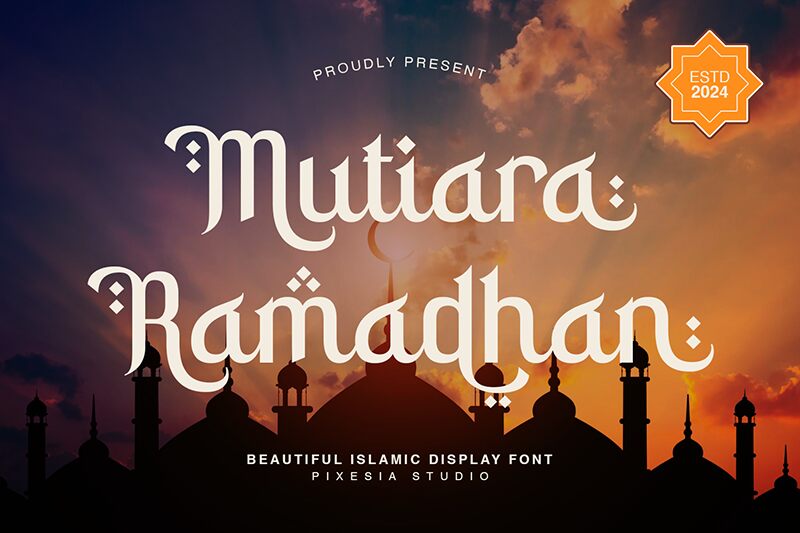
Mutiara Ramadhan font by Pixesia Studio is a foreign free font that immerses you in the allure of Islamic-inspired typography. Its ornamental and decorative style brings an elegant touch, characterized by intricate design elements that resonate culturally. This font captures a harmonious flow, where contemporary display meets thematic richness and traditional influences.